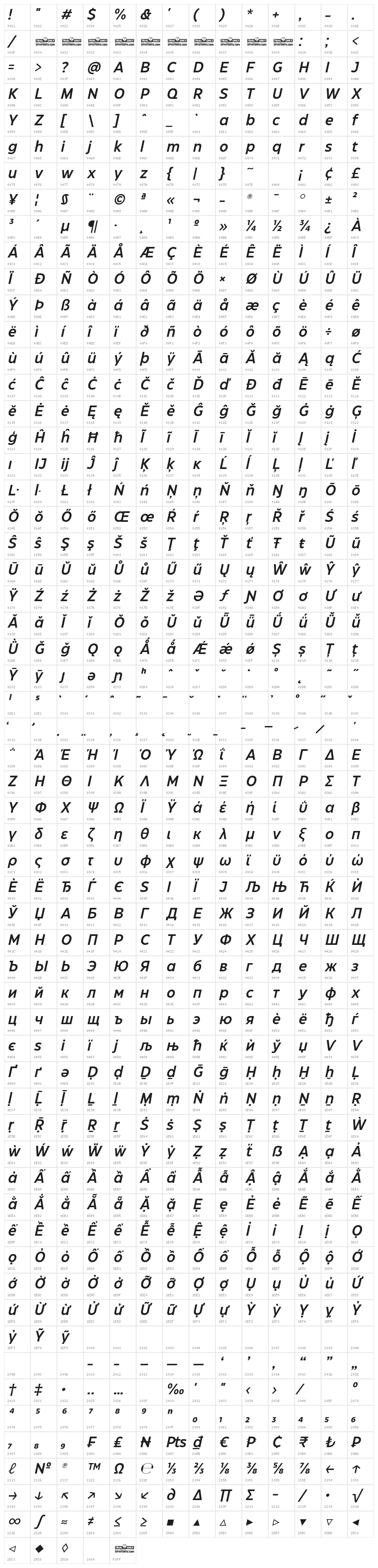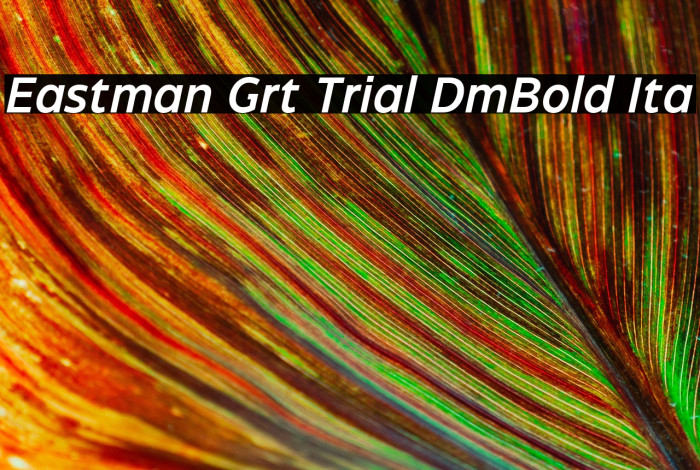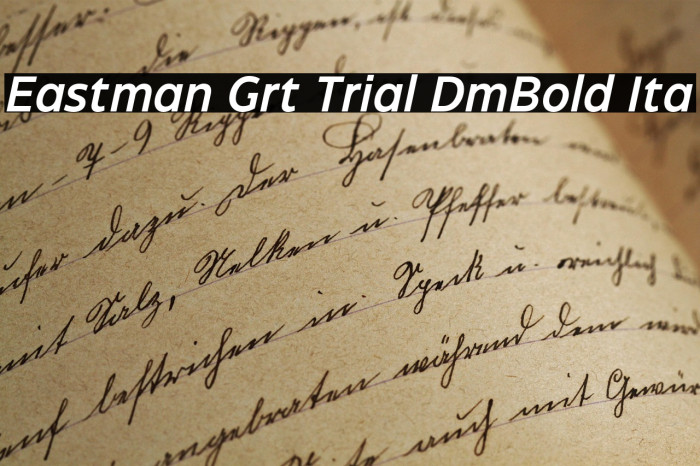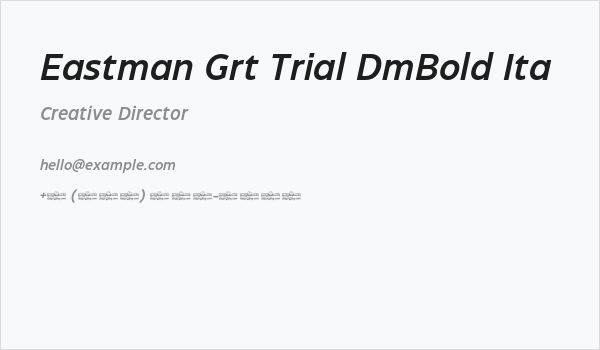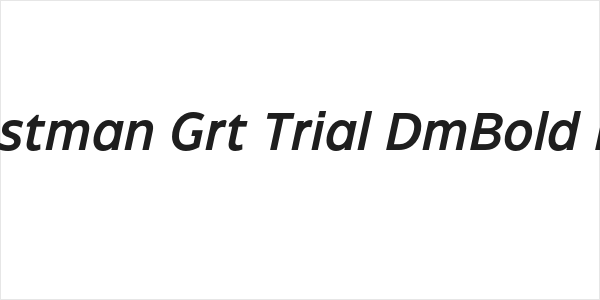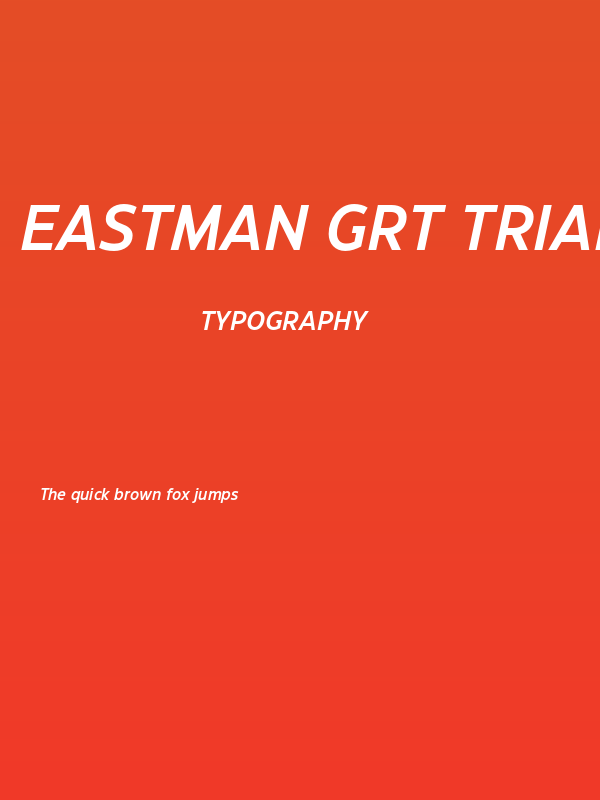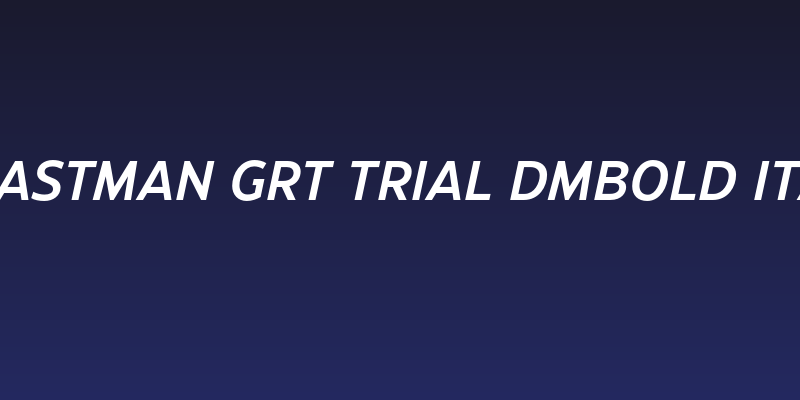
Eastman Grt Trial DmBold Ita Font
Eastman Grt Trial DmBold Ita Description
This font features a modern and sleek design with a slightly italicized style, giving it a dynamic and forward-leaning appearance. The characters are bold, with a consistent stroke width that provides a strong visual impact. The uppercase and lowercase letters are well-proportioned, maintaining readability across different sizes. The numerals and special characters are designed to match the overall aesthetic, ensuring a cohesive look. The font's clean lines and contemporary feel make it suitable for a variety of design applications.